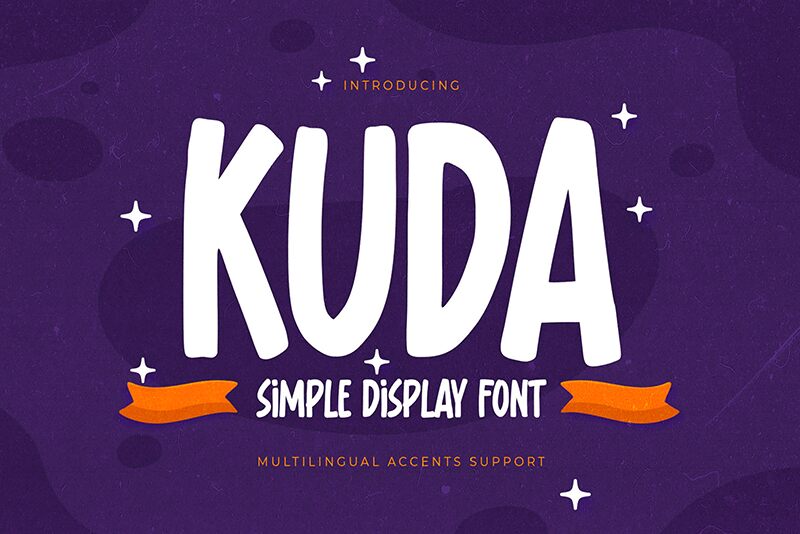
kuda
Kuda, crafted by the innovative Gassstype, emerges as a game-changer in the realm of display fonts. This semi-bold, condensed typeface boasts a playful comic style that belies its sophisticated design principles. Kuda is not just a font; it's an embodiment of modern flair and dramatic movement, capturing the essence of casual rapidity in written form. Ideal for creative mavens aiming to infuse authenticity and fun into their projects, Kuda excels in applications ranging from modern labels and captivating posters to branding and personalized greeting cards.
Its textured appearance adds depth to any visual composition, ensuring your designs stand out with an organic touch that digital mediums often lack. With Kuda’s OpenType features such as Ligatures and Alternates glyphs, designers can unleash their creativity, crafting bespoke works that resonate with character and distinctiveness.
Dive into the versatility of Kuda – where each letter transforms your project into an expression of contemporary elegance infused with a spirited charm.